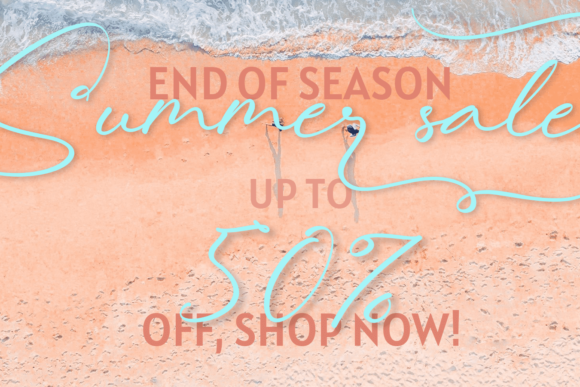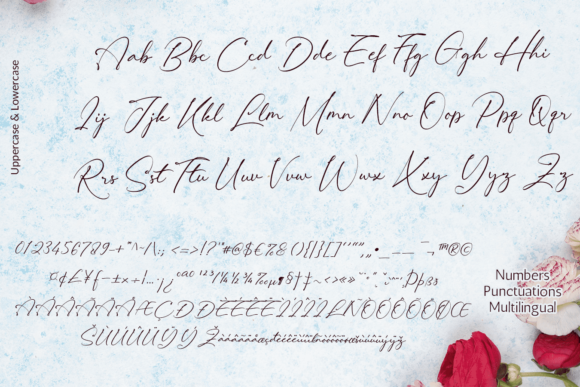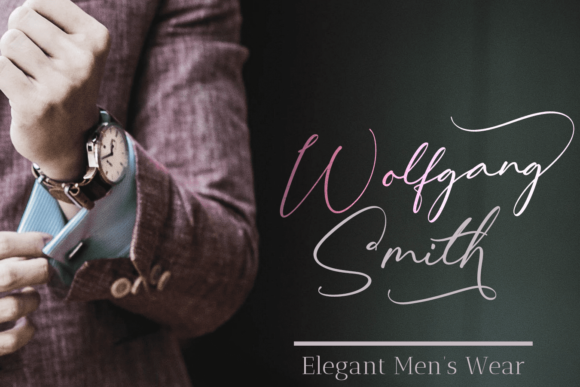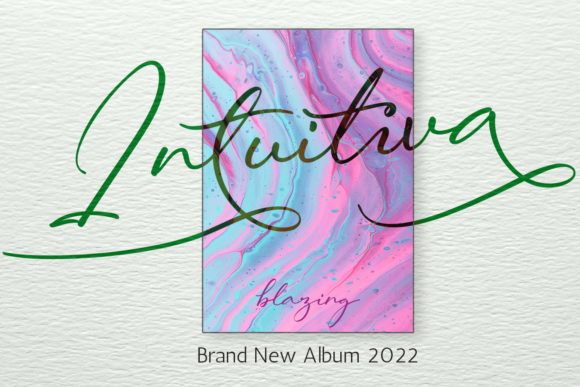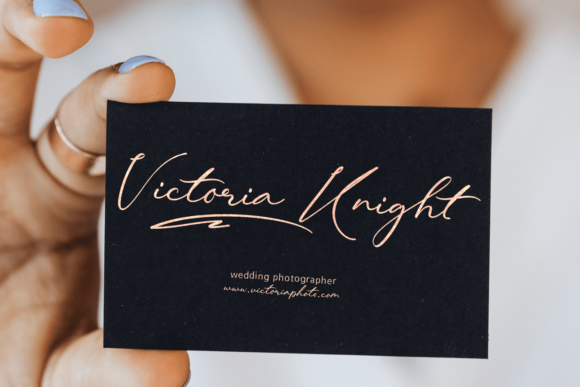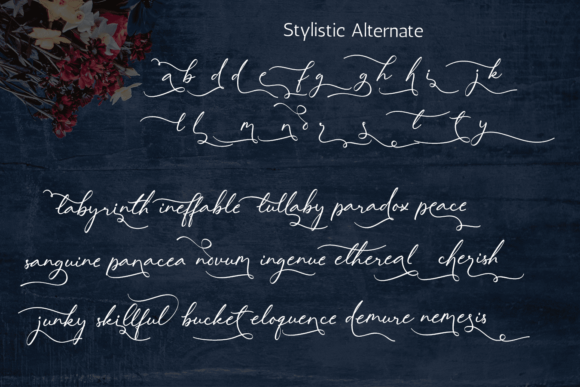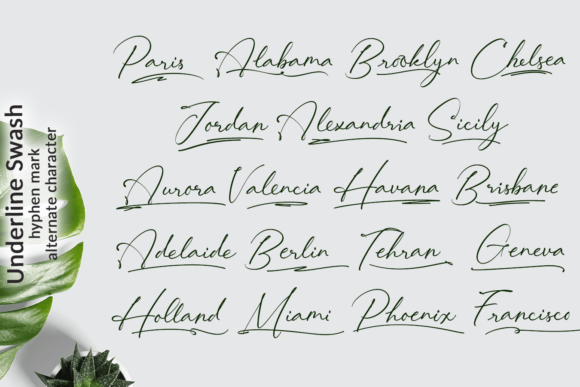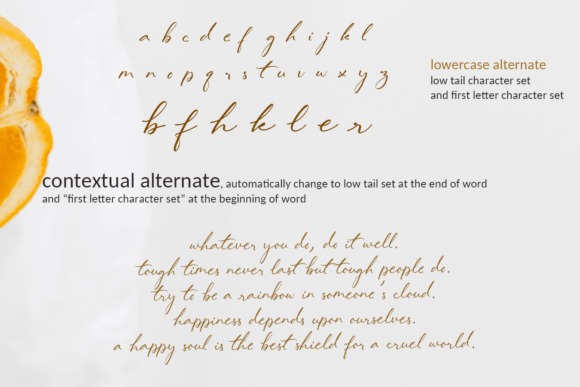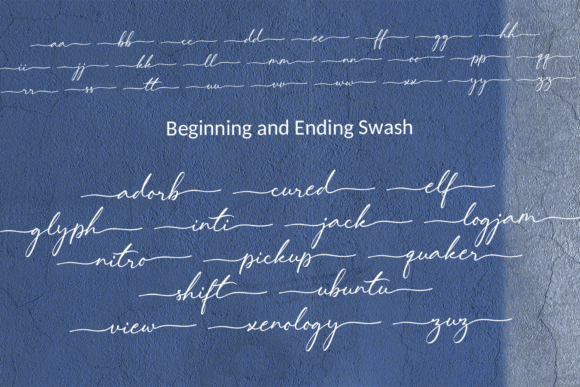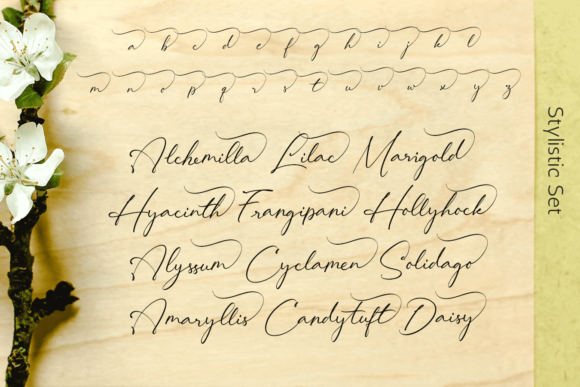
Lovely Hydrillas Font
About Lovely Hydrillas Font
Introducing Lovely Hydrillas Font, a contemporary handwritten typeface enriched with 55 ligatures to evoke the charm of natural handwriting. With its modern appeal and extensive ligature set, Lovely Hydrillas Script Font is perfect for a wide range of applications.
From elegant wedding invitations and refined wedding calligraphy to feminine or organic logos, small business branding, packaging, and beyond, Lovely Hydrillas Font adds a touch of sophistication to any project.
Its versatility knows no bounds, making it an ideal choice for designers seeking to infuse their creations with personality and flair. Whether you’re crafting a romantic wedding invitation or designing packaging for a boutique brand, Lovely Hydrillas Font elevates your designs with its handwritten allure.
With PUA encoding, accessing the myriad glyphs and swashes of Lovely Hydrillas Font is effortless. Whether you’re a seasoned designer or new to typography, you can easily customize your designs and achieve the perfect look for your project.
Embrace the modern elegance of Lovely Hydrillas Font and let its handwritten charm breathe life into your designs. Whether you’re creating for print or digital media, this font offers endless possibilities for adding a personal touch to your creations.
Experience the versatility and beauty of Lovely Hydrillas Font for yourself. Incorporate this contemporary handwritten font into your projects and watch as it transforms your designs into captivating works of art.
Unlock the full potential of your creativity with Lovely Hydrillas Font. Whether you’re designing for wedding stationery or small business branding, this font is sure to leave a lasting impression on your audience.